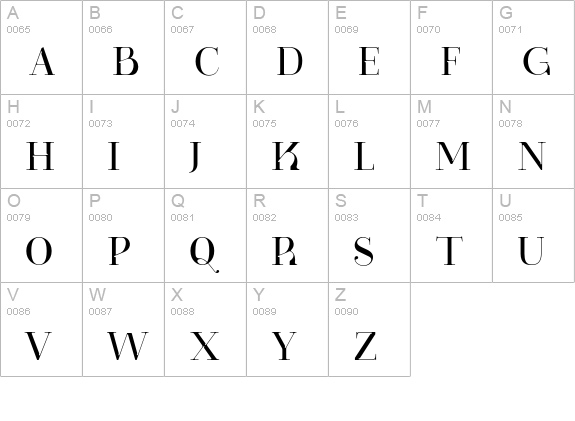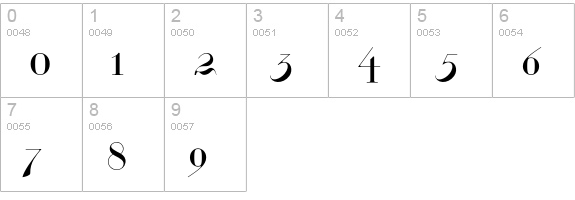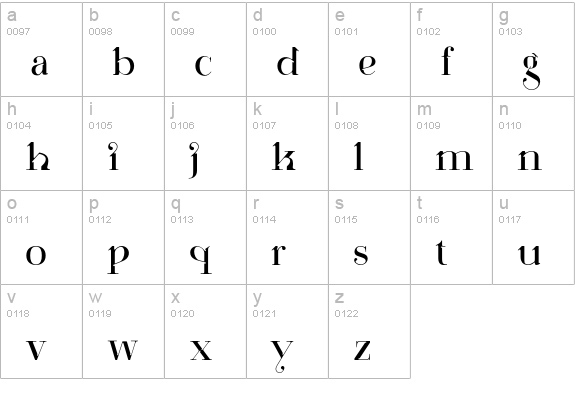
Paris Pro Regular Exit is the standard, neutral variant in the Paris typeface family \xE2\x80\x94 well suited to general body text, paragraphs, and standard typographic work.
Paris Pro Regular Exit font is a modern and elegant typeface that exudes sophistication and style. With its sleek lines and classic design, this font is perfect for a variety of projects, from branding to editorial design. The clean and crisp letterforms make it highly readable, while the slight curves add a touch of warmth and personality. One of the best things about Paris Pro Regular Exit font is that it is completely free to download. You can easily access this stunning typeface at FontsMarket.com, where you can enhance your creative projects with this versatile and eye-catching font. Whether you are working on a website, a brochure, a poster, or any other design project, Paris Pro Regular Exit font is sure to make a statement and elevate your work to the next level. Download it today and add a touch of Parisian charm to your designs.